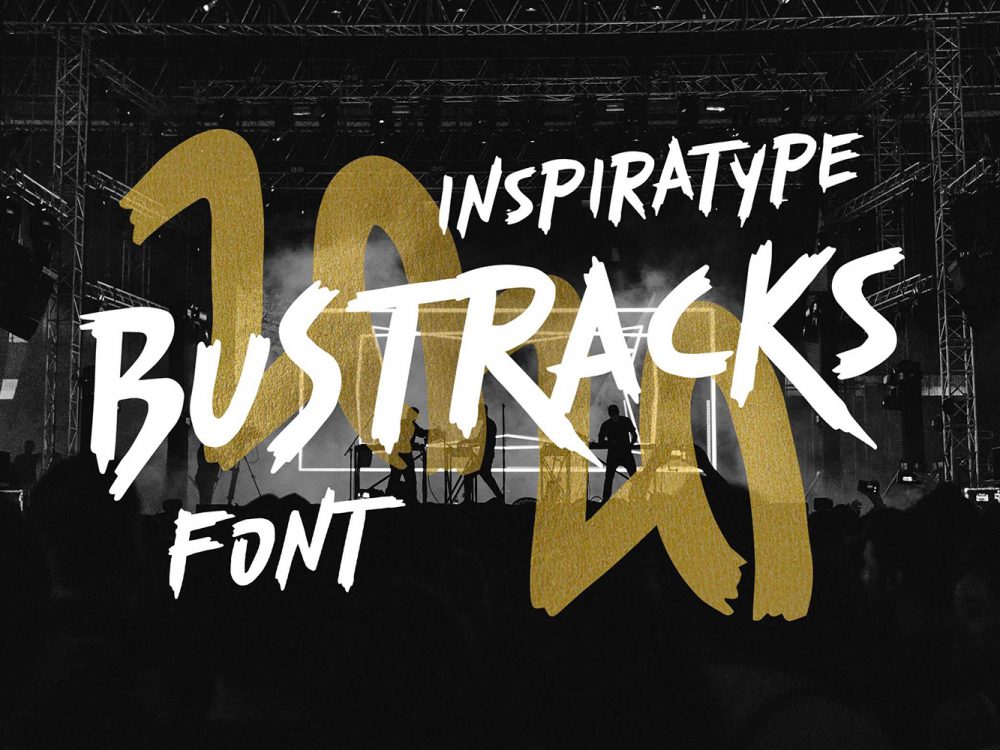
Bustracks Free Font
Bustracks Free Font is a modern typeface that simulates writing with a brush and helps you create unique stylish design projects. You can use this font to create memorable posters, wedding invitations, cards, branding, flyers, and more. Improve the quality and increase the popularity of your design projects by using this font. If you like it don’t forget to check out the full version.